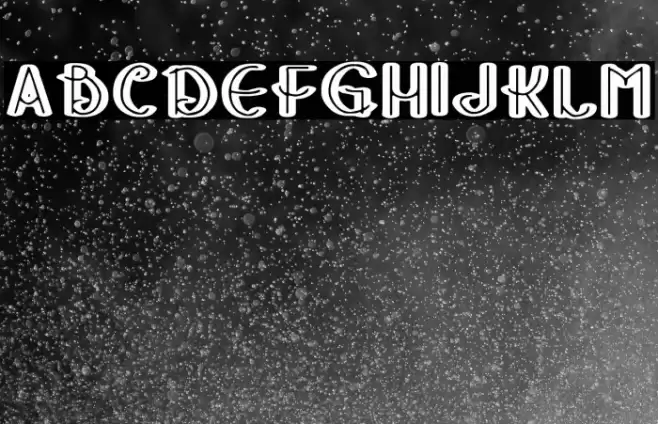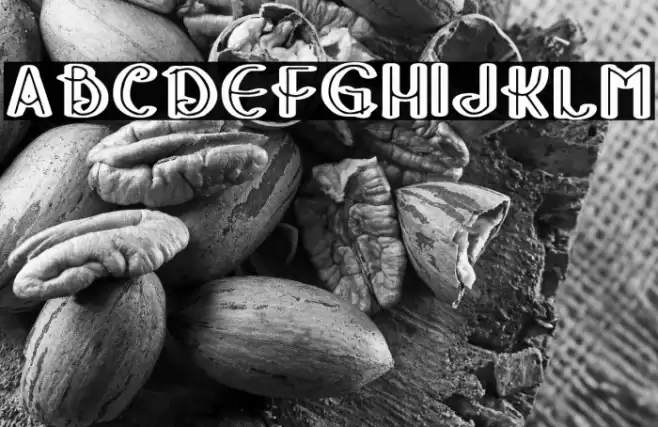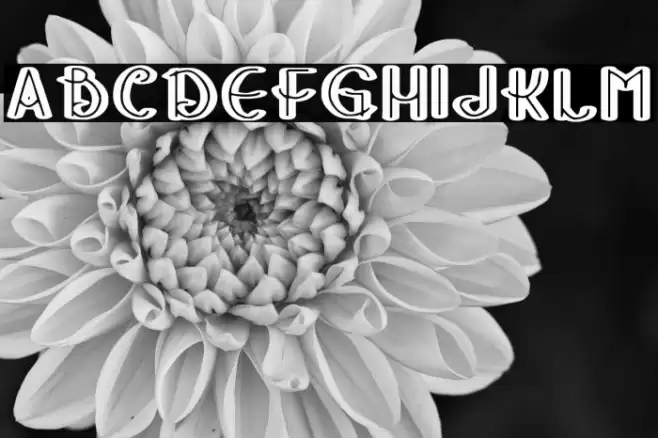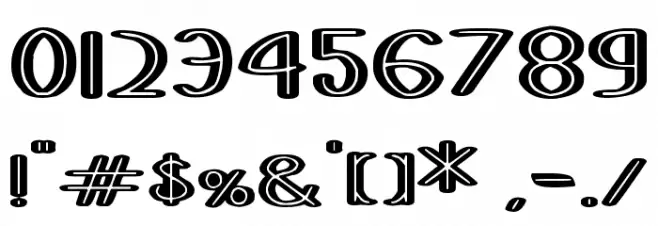
Stripes and Ribbons Font
Stripes and Ribbons Description
This font features a playful and decorative style with a unique ribbon-like design. Each character is outlined with a bold, black border, creating a striking contrast against the inner white space. The letters have a whimsical, flowing appearance, reminiscent of stripes or ribbons, which adds a dynamic and lively feel. The uppercase and lowercase letters maintain a consistent style, while the numbers and special characters integrate seamlessly into the overall design. This font is ideal for projects that require a fun and engaging visual element.
A playful, ribbon-like decorative font with bold outlines from Uncategorized fonts.
- Font: Stripes and Ribbons
- Proposed Projects: Ideal for children's book covers, playful branding, event invitations, and creative posters.